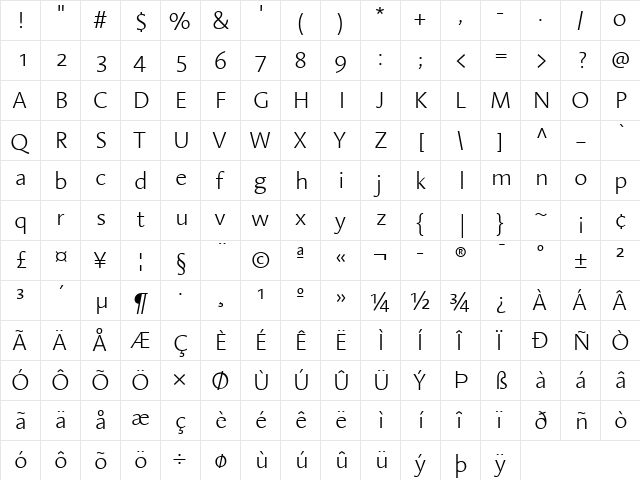
LinotypeAroma Light Light Font Preview
LinotypeAroma Light Light
LinotypeAroma Light Light Font Details
Design Context for LinotypeAroma Light Typeface
LinotypeAroma Light offers clean, dependable letterforms without strong stylistic allegiance, making it a practical choice for designers who need flexibility. Its slender proportions lend an understated elegance to any composition.